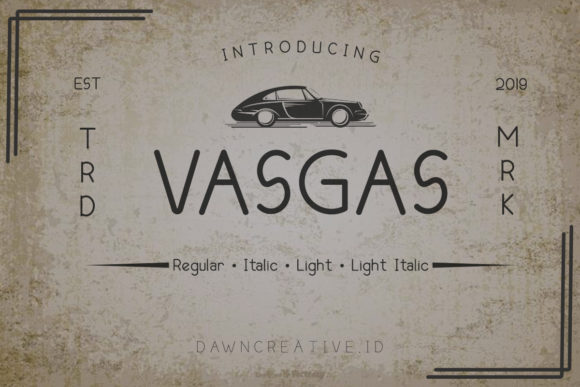
Behold the alluring Vasgas font, a captivating creation by Dawn Studio that will enchant your designs with its timeless elegance.
Immerse yourself in the world of typography with Vasgas, a sans serif font that exudes simplicity and style. Its clean lines and classic proportions create a visual harmony that will elevate any project to new heights.
With Vasgas, your designs will transcend the ordinary and become mesmerizing masterpieces. Let your imagination soar as you craft stunning logos, eye-catching websites, and unforgettable marketing campaigns that leave a lasting impression.
But Vasgas is not just a font; it's an extension of your creativity. Its versatility knows no bounds, effortlessly complementing a wide range of design aesthetics. Whether your style leans towards the minimalist, the traditional, or the downright flamboyant, Vasgas will blend seamlessly, adding a touch of sophistication and charm.
The power of typography is in your hands. With Vasgas, every word you write becomes a visual symphony, captivating your audience and leaving them yearning for more.